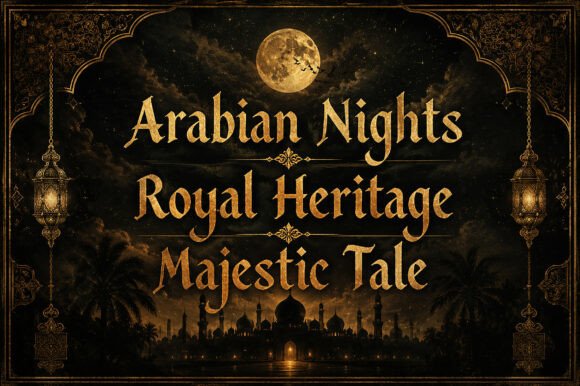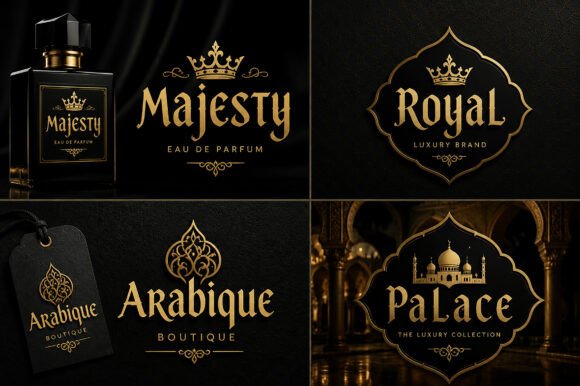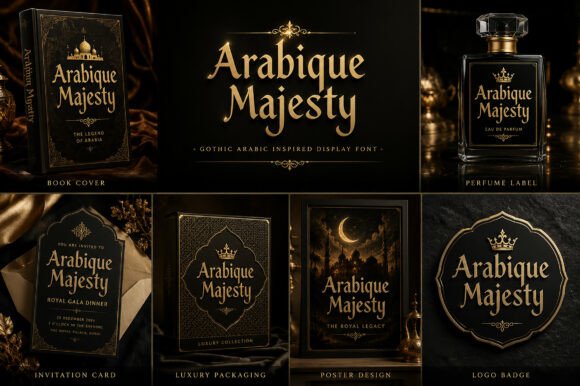
Arabique Majesty Font: Elevate Your Designs with Regal Elegance
Introducing Arabique Majesty, a stunning display font that embodies the grandeur of Gothic letterforms and the timeless allure of Arabic architecture. This bold and elegant font is meticulously crafted to infuse your creative projects with luxury, mystery, and sophistication. Whether you’re a designer, craftsperson, or simply someone who appreciates the finer things in life, Arabique Majesty is the perfect choice for those who strive for excellence.
Inspired by Timeless Classics
Arabique Majesty draws inspiration from the intricate details and majestic character shapes of Gothic letterforms and Arabic architecture. The font’s sharp details, dramatic curves, and regal lines evoke a sense of opulence and refinement, making it ideal for projects that demand a touch of elegance. From the sweeping arches of ancient mosques to the ornate flourishes of Gothic cathedrals, Arabique Majesty’s design is a masterful blend of vintage charm and modern sophistication.
Arabique Majesty is a versatile font that lends itself to a wide range of creative applications. Use it to create:
- Premium branding materials that exude luxury and refinement
- Book covers that command attention and inspire curiosity
- Movie posters that transport viewers to another world
- Luxury packaging that elevates the unboxing experience
- Perfume labels that evoke the essence of exclusivity
- Editorial designs that showcase your unique perspective
- Invitations that set the tone for unforgettable events
- Logos that leave a lasting impression
- High-end marketing materials that resonate with discerning audiences
Why Choose Arabique Majesty?
For designers and craftspersons seeking to create unforgettable visual experiences, Arabique Majesty offers a unique combination of:
- Vintage elegance: Arabique Majesty’s classic design ensures that your projects stand the test of time, evoking a sense of nostalgia and refinement.
- Royal aesthetic: The font’s majestic character shapes and ornate details convey a sense of luxury and exclusivity, perfect for high-end applications.
- Unparalleled versatility: Arabique Majesty’s bold and elegant design makes it suitable for a wide range of creative projects, from print materials to digital applications.
Bringing Your Vision to Life
With Arabique Majesty, you can:
- Create stunning visual experiences that captivate and inspire your audience
- Establish a strong brand identity that exudes luxury and sophistication
- Elevate your designs to new heights with a font that truly makes a statement
Arabique Majesty Font is a masterpiece of typographic design, offering a unique blend of Gothic and Arabic influences that will elevate your creative projects to new heights. With its bold and elegant design, versatility, and timeless charm, this font is an essential tool for designers and craftspersons seeking to create unforgettable visual experiences. Unlock the full potential of Arabique Majesty and discover a world of luxury, mystery, and sophistication.